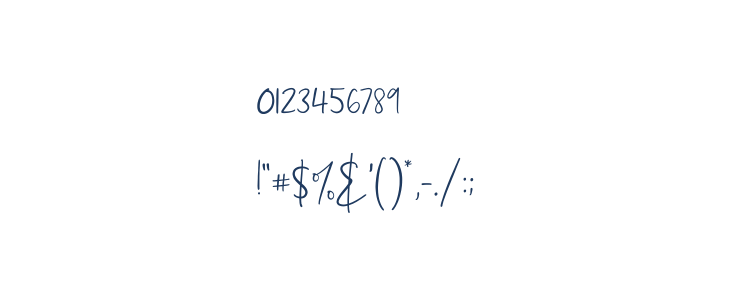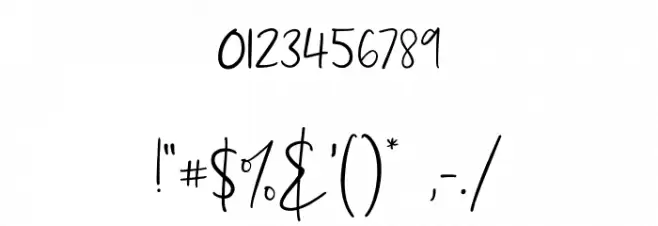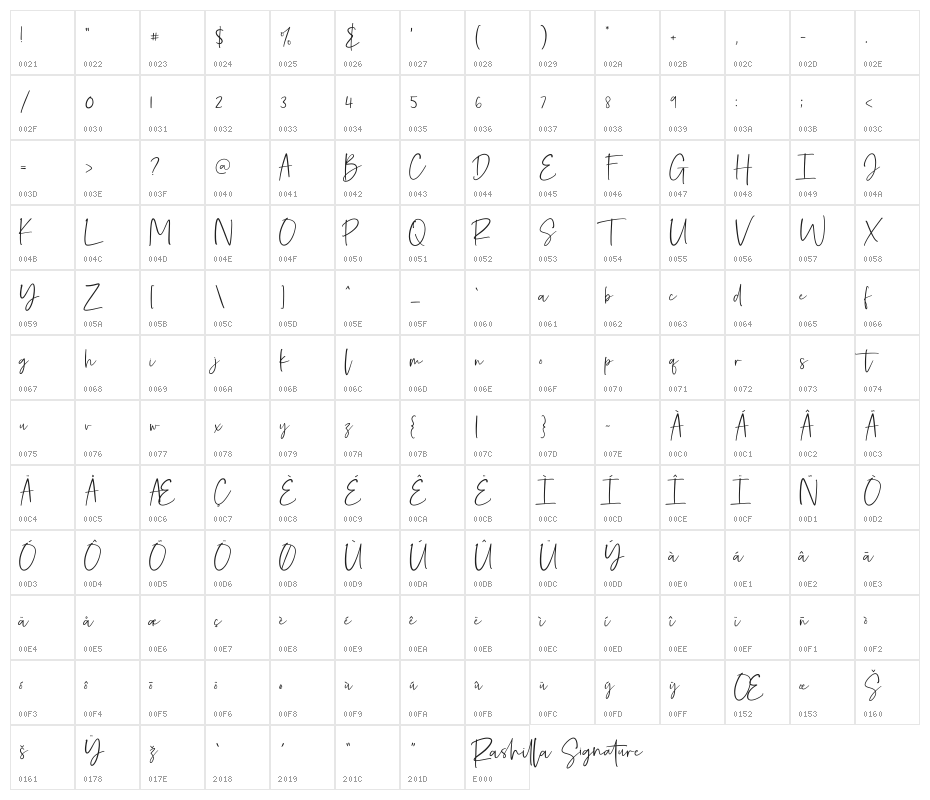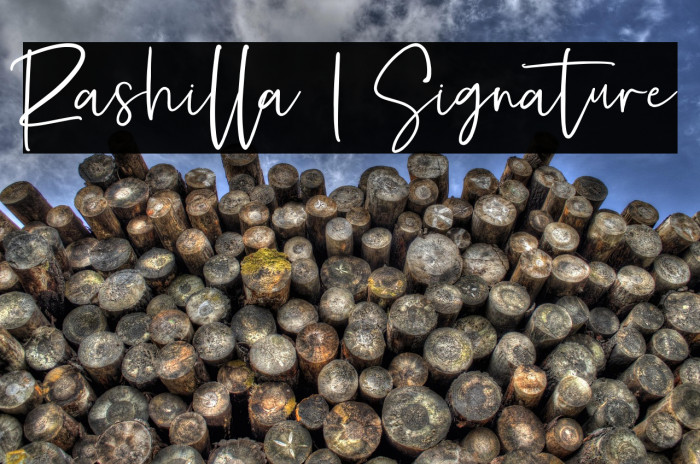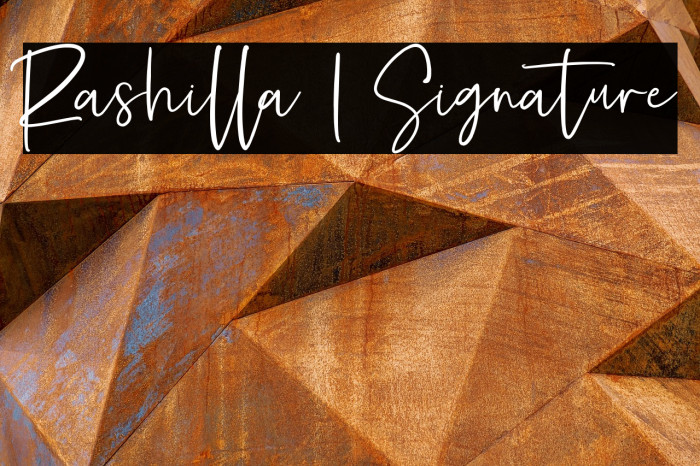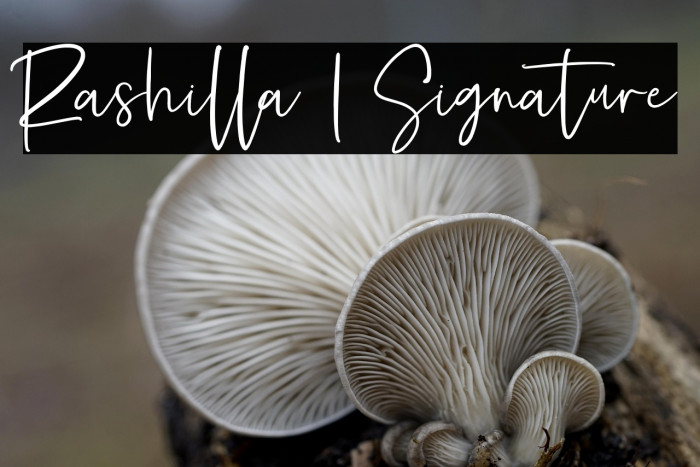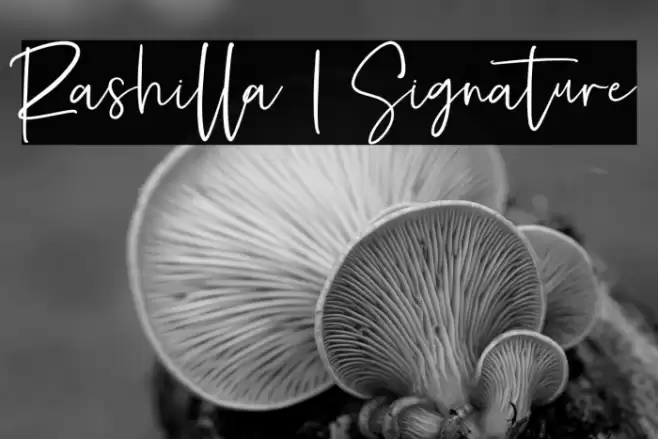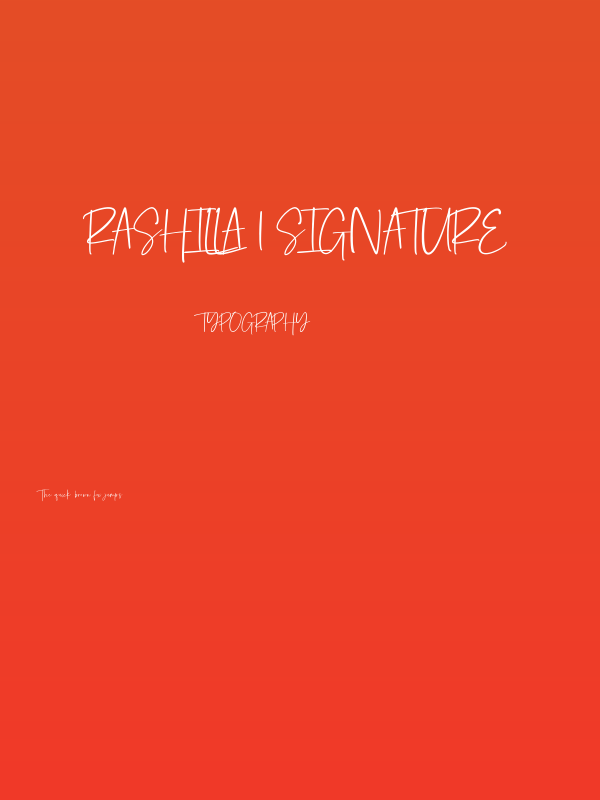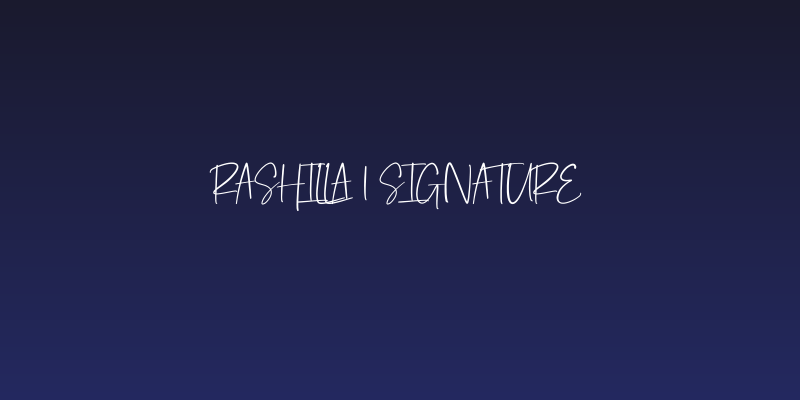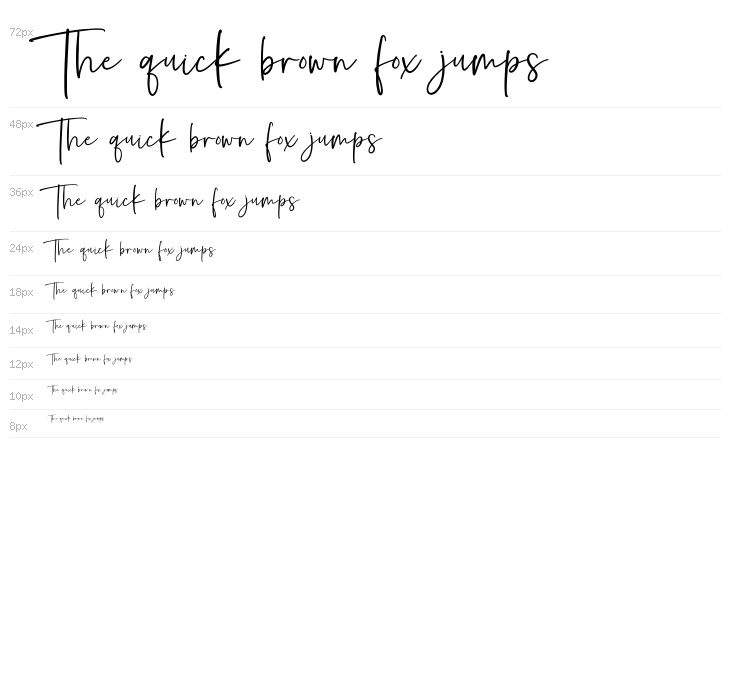
Rashilla | Signature Font
This font features a flowing, cursive style that mimics the fluidity of handwriting. The letters are elegantly connected, with a natural and organic feel that adds a personal touch to any text. The uppercase letters are tall and slightly narrow, while the lowercase letters maintain a consistent height, creating a harmonious balance. The numbers and special characters complement the alphabet with similar curves and strokes, enhancing the cohesive look. This font is ideal for projects that require a personal or artistic flair, such as invitations, greeting cards, and branding materials.
| Proposed Projects | Ideal for wedding invitations, personal branding, greeting cards, and artistic projects. |